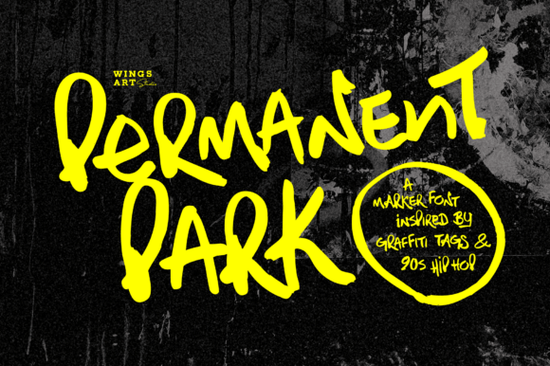
If you’ve been searching for a font that feels like it jumped off a 90s mixtape cover or a street mural downtown, Permanent Park Font might be exactly what your next project needs. It’s hand-drawn with marker pen energy, full of personality, and built to bring that raw, urban vibe to posters, merch, logos, or social media graphics. Whether you’re designing t-shirts for a skate brand, packaging for a food truck, or flyers for a local event, this font adds instant character without needing any extra styling.
What makes Permanent Park different from other display fonts?
Most display fonts try to stand out with exaggerated shapes or digital polish but Permanent Park leans into imperfection. Every letter was drawn by hand to mimic the look of graffiti tags you’d see under highway overpasses or on the back of vintage bomber jackets. There’s bounce in the baseline, variation in stroke weight, and just enough roughness to feel alive. It’s not trying to be sleek. It’s trying to be real.
Who should use this font?
- Print-on-demand sellers looking for standout text for hoodies, mugs, or stickers.
- Small food or beverage brands wanting to channel retro diner or street food energy.
- Sports teams or fitness coaches who need bold, high-energy typography.
- Crafters and DIY designers making birthday invites, scrapbook titles, or wall art with attitude.
- YouTube thumbnails or podcast cover art creators aiming for that nostalgic hip hop aesthetic.
If you liked the playful bounce of Fries and Shake or the athletic grit of Runner, you’ll probably vibe with Permanent Park too. It slots right in between those casual enough for food themes, tough enough for streetwear, and stylized enough for editorial layouts.
How does it pair with other fonts?
Because Permanent Park has such a strong visual voice, it works best as a headline or accent font. Pair it with clean, minimal sans-serifs for balance think something like Helvetica Neue, Montserrat, or even Cytone if you want to keep things modern but still edgy.
For themed projects say, a BBQ sauce label or sneaker campaign try combining it with textures like distressed paper, halftone patterns, or spray paint overlays. You don’t need to force the 90s vibe; the font does most of the heavy lifting.
A few pairing ideas:
- Permanent Park + thin geometric sans = streetwear brand identity
- Permanent Park + vintage script = food truck menu board
- Permanent Park + bold condensed sans = sports poster or gym merch
It’s also worth noting that since it’s fully hand-drawn, no two uses will look identical especially if you take advantage of the alternates. That’s a bonus for creatives who want their designs to feel less templated and more human.
This isn’t a font you install and forget. It’s one you come back to when you need something that feels handmade, rebellious, and unmistakably 90s. Whether you’re channeling Wu-Tang Clan album covers or Nickelodeon bumpers, Permanent Park gives you the tools you just bring the vibe.